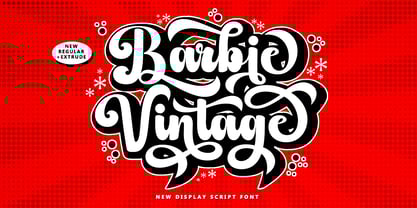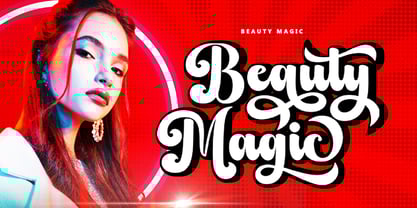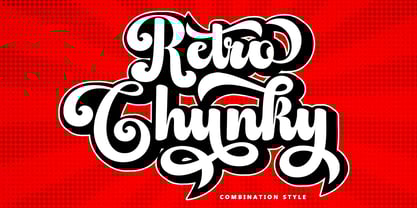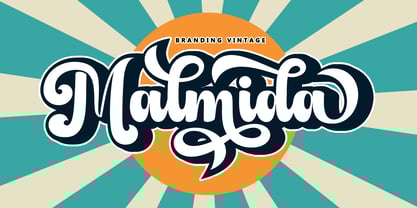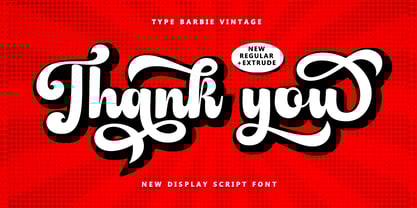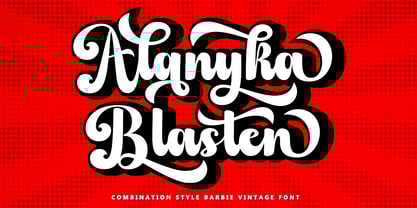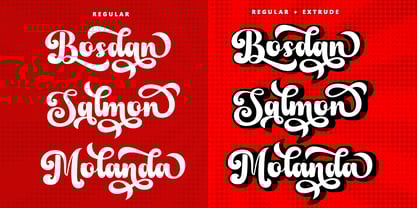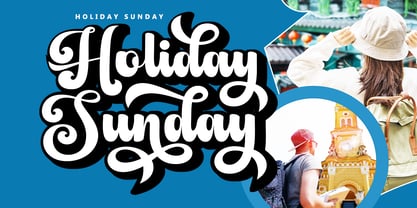
Barbie Vintage
by Bungletter
The Barbie Vintage Font Family was designed by Muhammad Nazar and published by Bungletter. Barbie Vintage contains 2 styles and family package options. More about this family
Barbie Vintage is a Display Script and Retro font. It is bold, confident and dynamic and can add a lot of nostalgic character to your designs.
This retro style is perfect to apply in various formal forms such as invitations, labels, restaurant menus, logos, fashion, makeup, stationery, novels, magazines, books, greeting/wedding cards, packaging, labels or any type of advertising purposes and you will definitely impress your audience. . . . . . .
Designers: Muhammad Nazar
Foundry: Bungletter